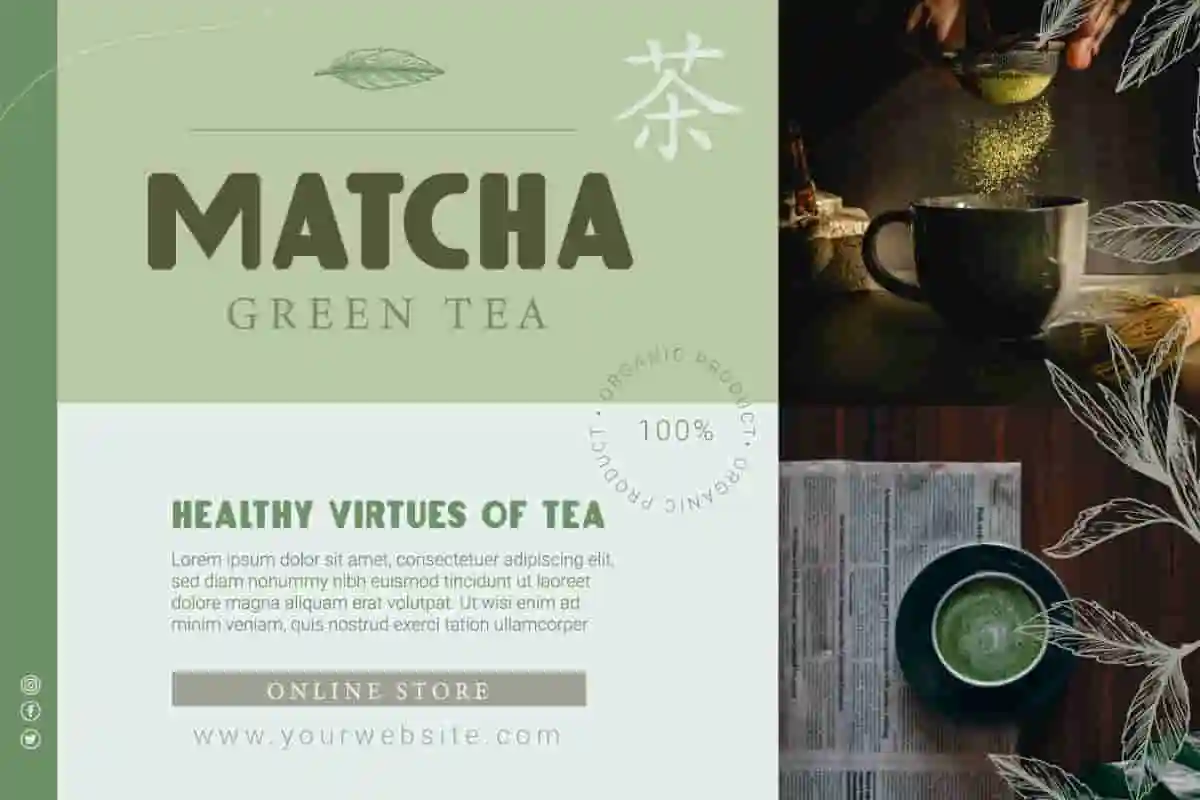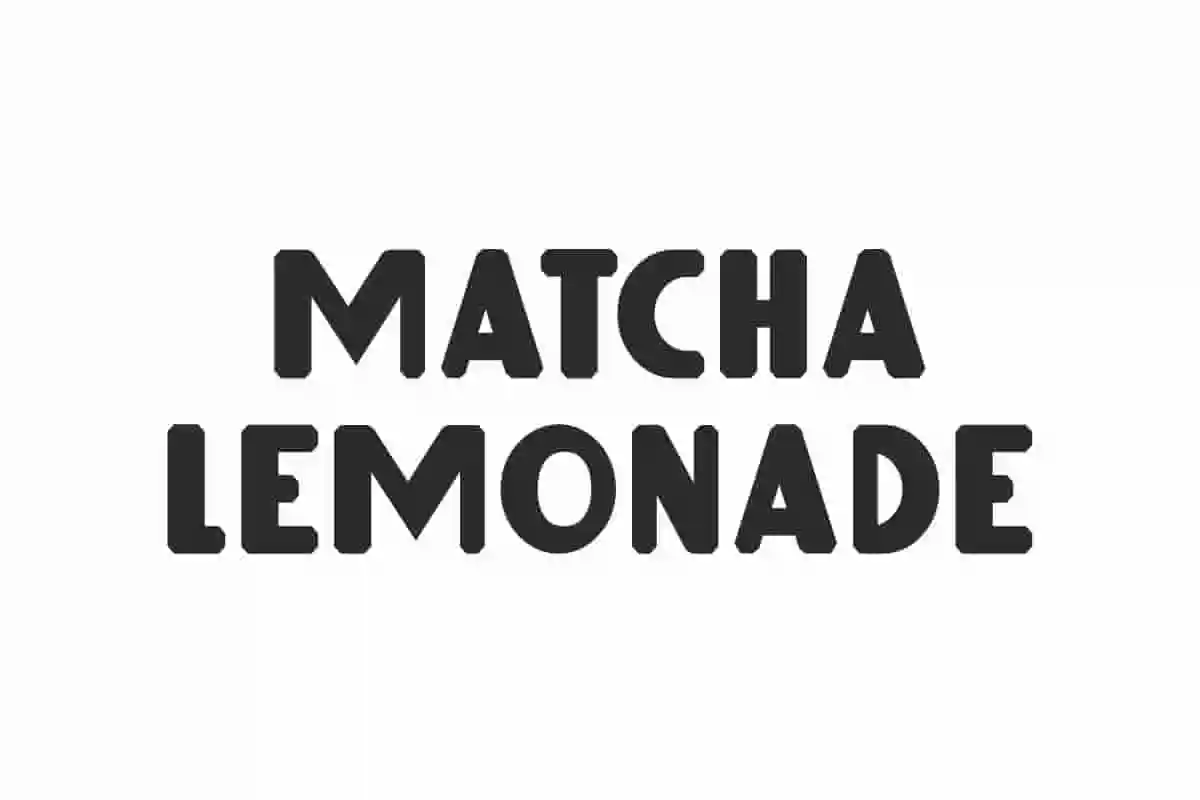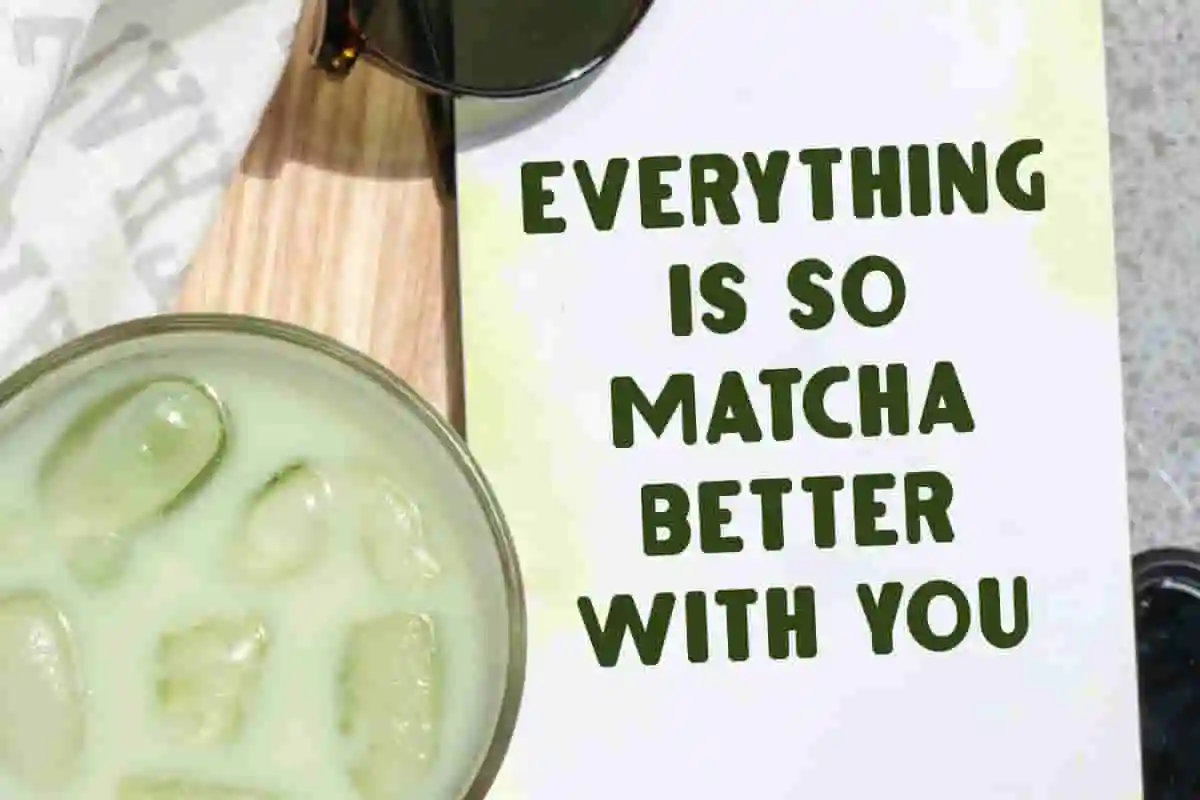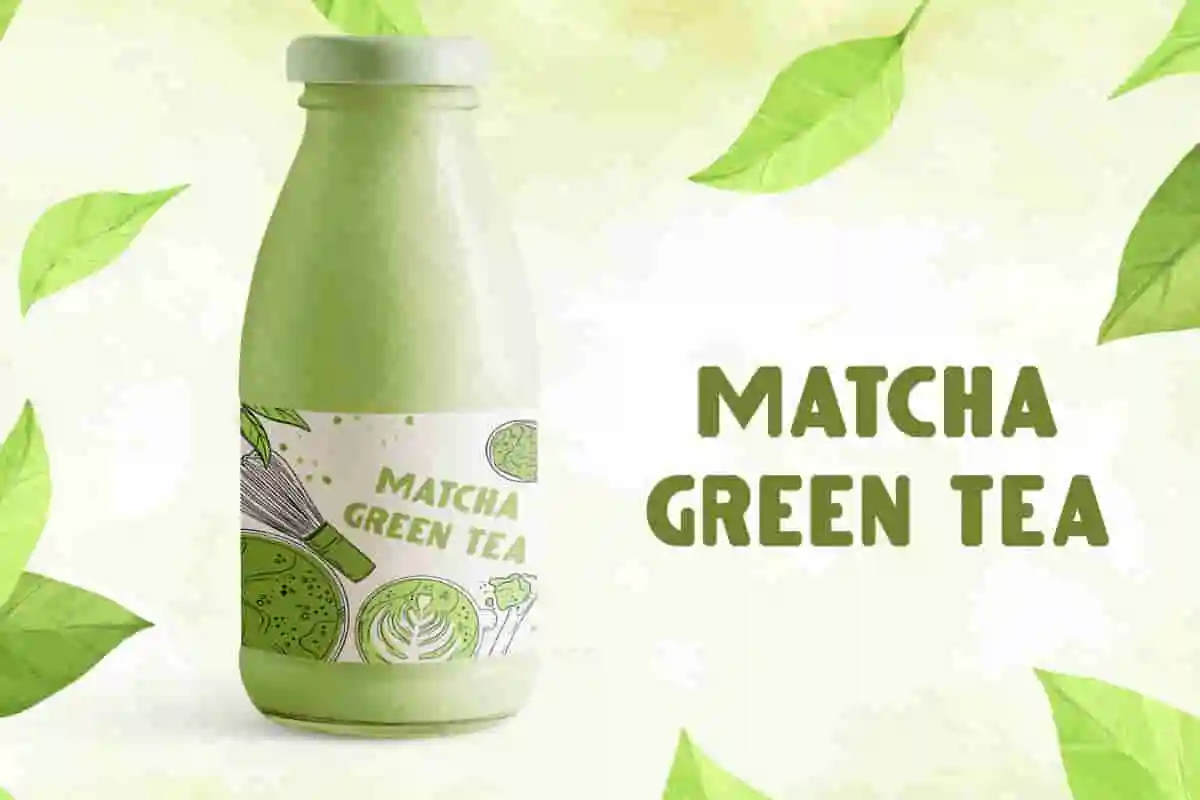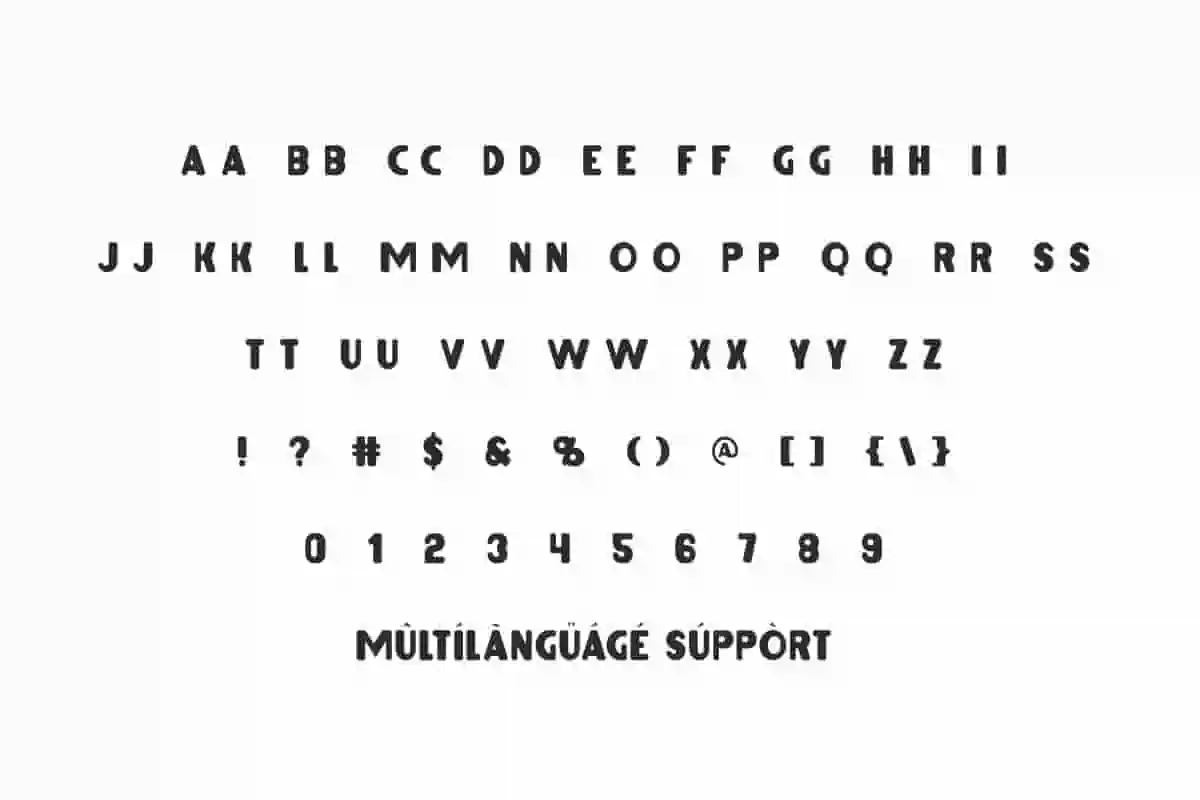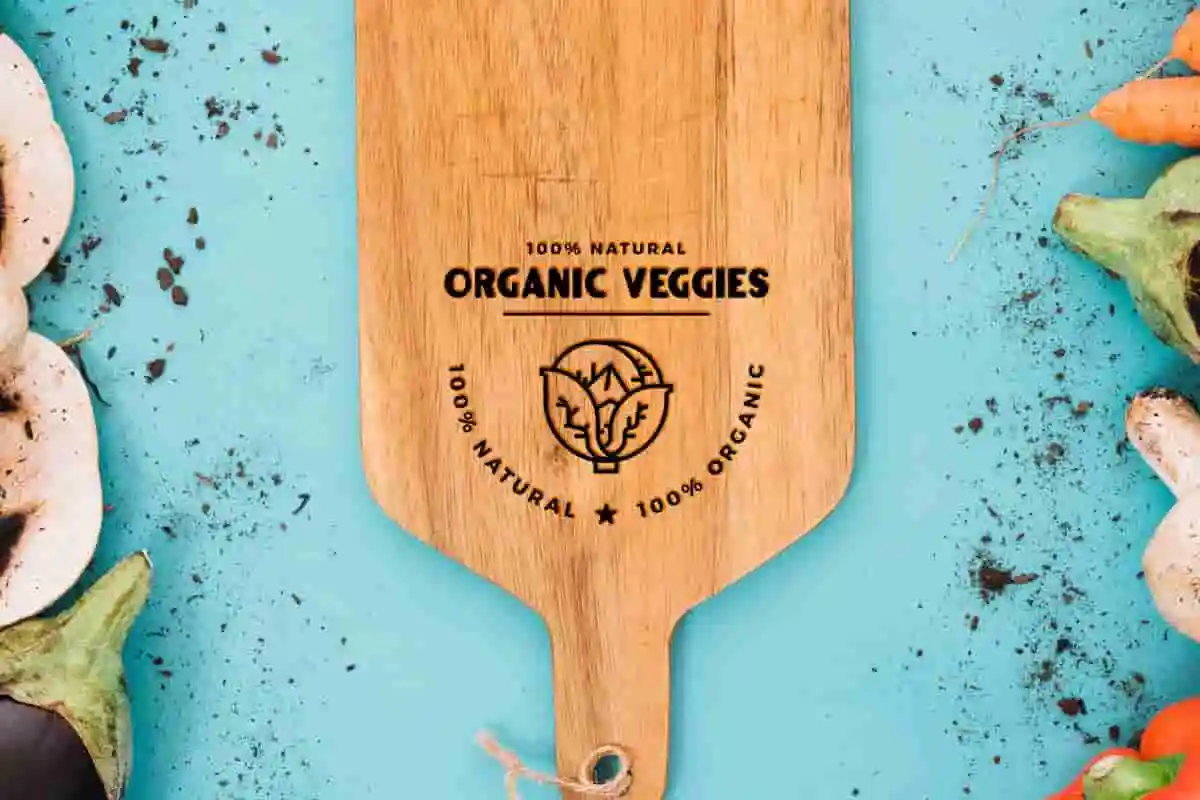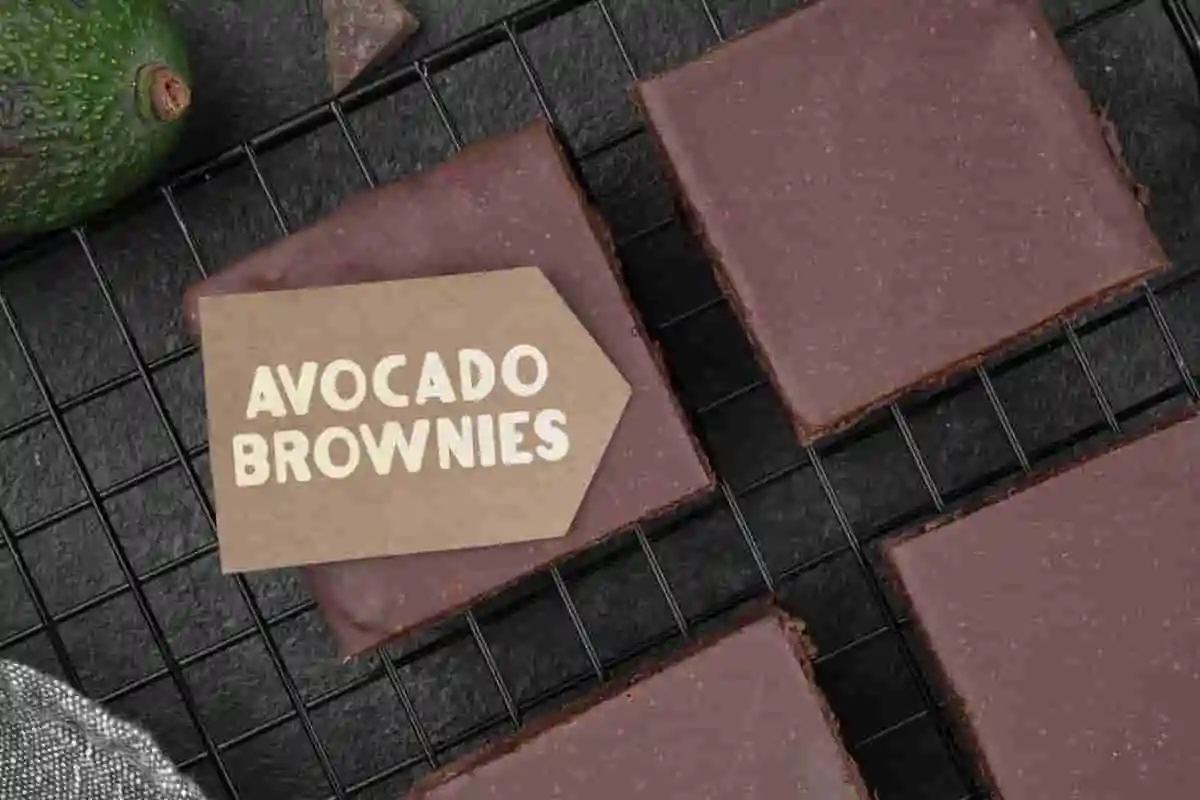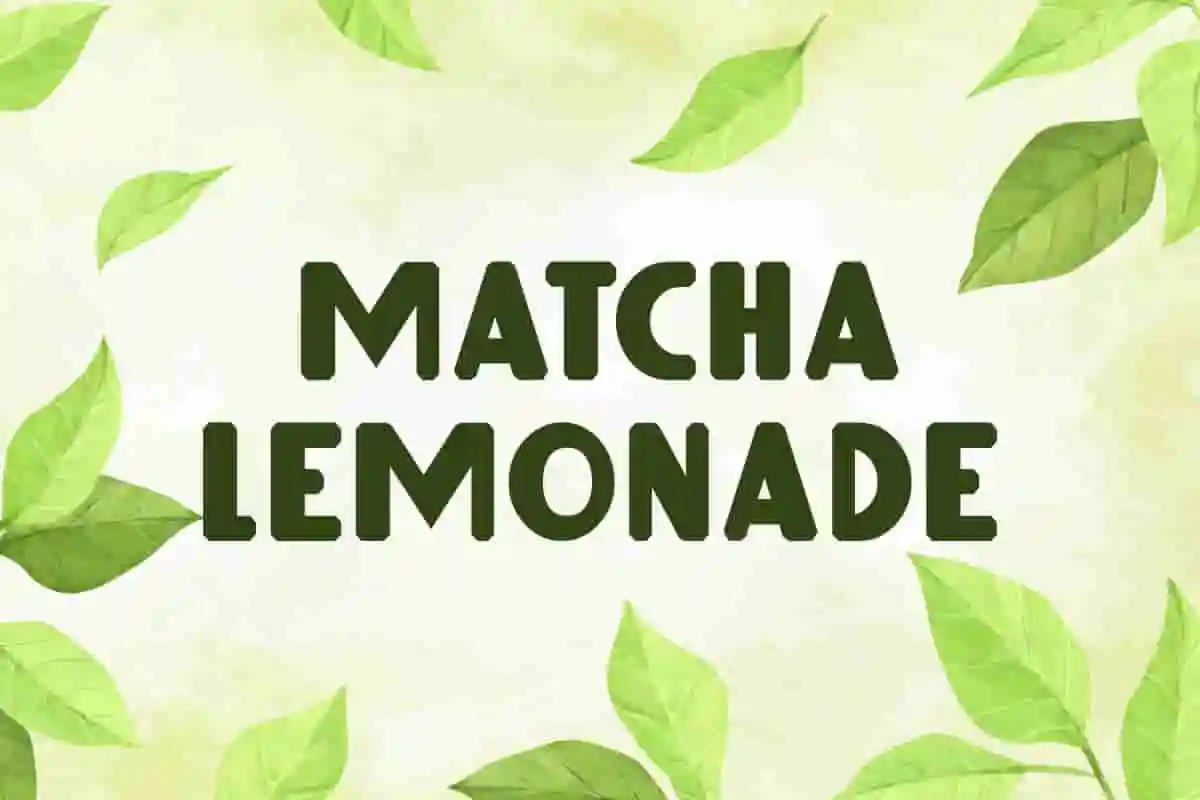
Matcha Lemonade Font is a chubby display font with adorable playful bold lines. It will be versatile to support your creativity.
Matcha Lemonade Font is an adorable bold display font. This will add a fresh look to your business, such as architect, bakery, café, catering, clothing brand, cold drink brands, construction, cooking, craftsman, fashion, florist, furniture, movie, pastry, photography, printing, publishing, restaurant, retail, tea spot, wellness, writer, and many more.
Matcha Lemonade Font includes a complete set of Basic Characters Uppercase and Lowercase that are ALL CAPS, Number, Punctuation, and Symbol. Its stylish look can enhance your designs in different ways, such as billboard, blogs, brochure, cover magazine, header, invitation, label, logos, poster, packaging design, screen print, signage, stationery, sticker, title, website, etc.